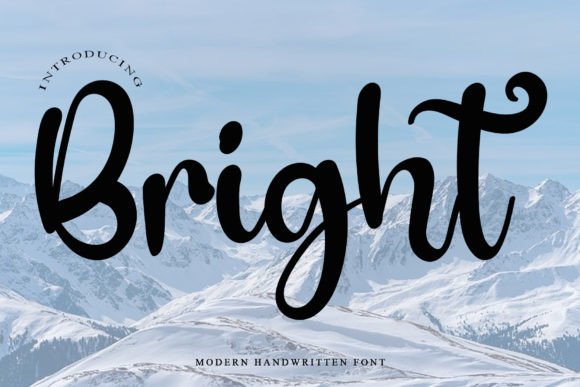
The Bright Font: A Timeless Elegance for Your Designs
Have you ever been in the middle of a design project, and suddenly, you’re stuck on finding the perfect font? I recall a recent experience where I was working on a client’s branding project, and I just couldn’t seem to find a font that captured the essence of their elegant and sophisticated brand. That’s when I stumbled upon the Bright font, and it instantly fell in love with its incredibly distinct and timeless style.
An Honest Review of Bright Font
What I Love About Bright Font
- ✨ Elegant and sophisticated feel
- 💫 Perfect for a wide range of design projects, from branding to wedding invitations
- 🎨 Beautifully crafted with an attention to detail
While Bright Font is an amazing font, there are a few things to keep in mind:
- ⚠️ Some of the more intricate glyphs may not display properly on certain devices or browsers
- 🤔 It may not be the best choice for body text, as it’s more suited for headings and titles
The Designer Inspiration Behind Bright Font
Bright Font was designed with the intention of creating a beautiful and elegant handwritten font that captures the essence of timeless style. The designer aimed to create a font that’s perfect for a wide range of design projects, from branding to wedding invitations. With its incredibly distinct and elegant touch, Bright Font is sure to make your designs stand out.
Q: What type of projects is Bright Font best suited for?
A: Bright Font is perfect for a wide range of design projects, including branding, logos, wedding invitations, and more.
Q: Is Bright Font suitable for body text?
A: While Bright Font is highly legible, it’s more suited for headings and titles. For body text, you may want to consider a more traditional serif or sans-serif font.